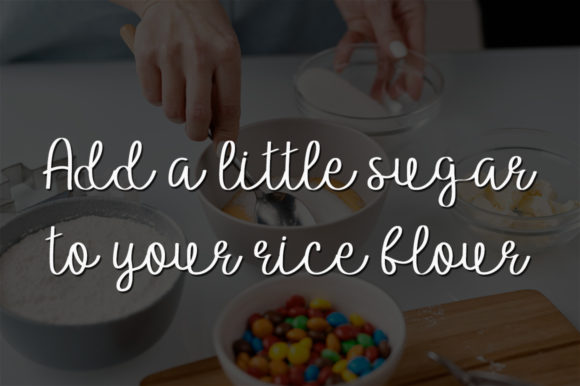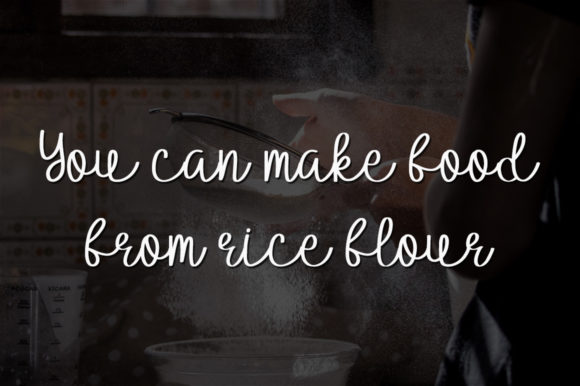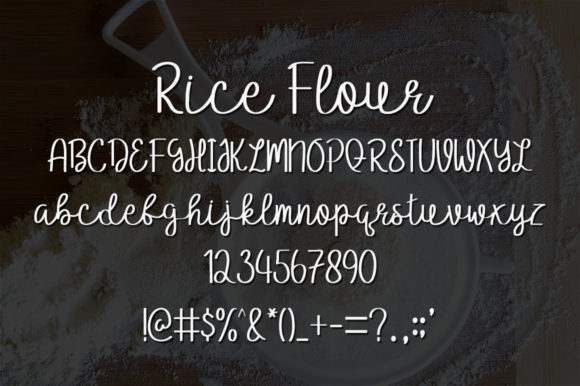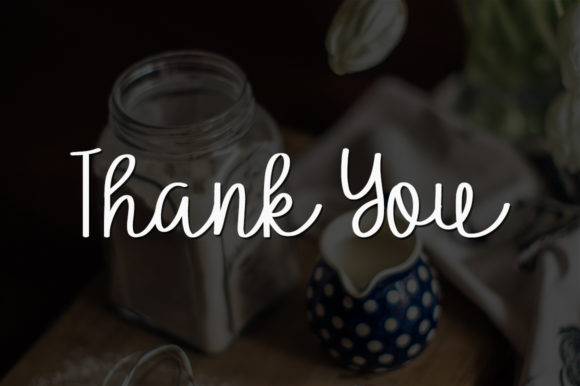
Introduction to Rice Flour Font
Have you ever stared at a blank page, wondering where to begin your next creative project? For designers, finding the perfect font can be the spark that sets the imagination ablaze. And that’s exactly what happens when you lay eyes on the stunning Rice Flour Font.
This exquisite handwritten font has captured the hearts of many with its delicate and well-rounded letters, making it a true masterpiece. With its versatility and high-quality design, it’s no wonder why designers are falling in love with the Rice Flour Font. Whether you’re working on a new logo, brochure, or digital design, this font is a valuable resource that can elevate your work to the next level.
Key Features of Rice Flour Font
- High-quality design resource ideal for creative projects, offering a unique aesthetic.
- Unique characteristics: The font features a delicate, hand-drawn style reminiscent of traditional Japanese typography.
Honest Review: Rice Flour Font
I recently had the chance to work with the Rice Flour Font in a creative project, and I must say I was quite impressed. The high quality design makes it a great addition to any project that requires a delicate touch. One of the standout features of this font is its transparent background, which makes it incredibly versatile for use in various design contexts.
Here are some things that work well with the Rice Flour Font:
- ✨ High quality design that’s perfect for creative projects
- ✨ Transparent background for easy use in various design contexts
- ✨ Great for those looking for a unique and elegant font
- ⚠️ Limited character set, which may not be suitable for extensive text-based projects
- ⚠️ May not be suitable for projects requiring bold or dramatic font styles
Rice Flour Font
Rice Flour Font is a high-quality design resource that can elevate your creative projects. This versatile font is perfect for designers looking for a unique and elegant touch.
Rice Flour Font is perfect for creating invitations, wedding stationery, and other elegant designs. It’s also great for logos, branding materials, and marketing collateral.